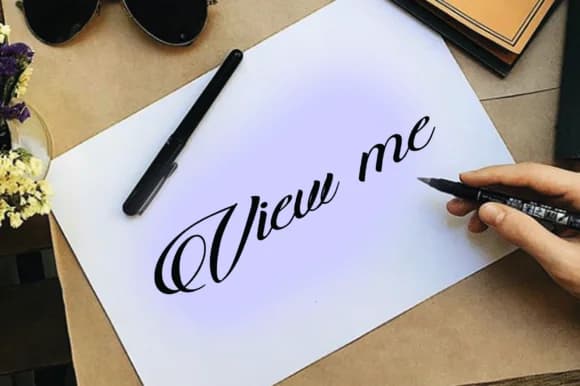
The Victory by Arepgunkell is a swash-forward script typeface that brings refined sophistication to headline-focused designs. The font's uppercase characters feature flowing decorative strokes that create an inherently polished presence, making it particularly suited to projects where visual distinction and elegance matter equally.
This typeface excels in creating premium brand identities, luxury wedding stationery suites, upscale product label design, and boutique packaging applications. Whether you're designing custom restaurant menu cards, crafting greeting card collections, or building invitations for high-end events, The Victory delivers visual presence that communicates quality without feeling overstated. The decorative swashes activate in uppercase letters, giving designers flexibility to employ them strategically for impact while keeping lowercase letters clean and readable for supporting text.
The font performs across multiple design contexts—from branding mockups to print collateral—and works well in both digital and physical media. Its strong personality makes it ideal for designers establishing distinctive visual identities for upscale ventures, artisanal brands, or special occasion services. The versatile script works equally well on jewelry brand logos, beauty product labels, and creative studio identities where a touch of handcrafted refinement enhances the brand story.
The Victory Font is a script font that shines as a display or heading face. Pair it with a clean sans-serif or serif font for body text — the contrast creates a clear hierarchy while the two styles stay balanced and easy to read.